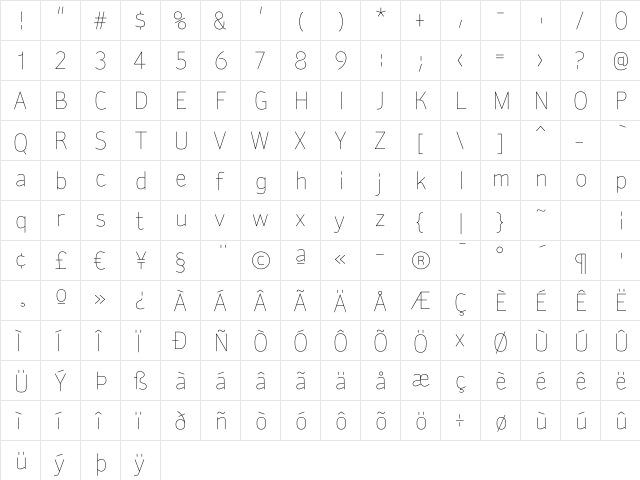
SylviaLight Regular
Design Context for SylviaLight Typeface
SylviaLight is a composed and adaptable typeface that performs quietly and consistently across a wide range of design contexts. Its slender proportions lend an understated elegance to any composition.